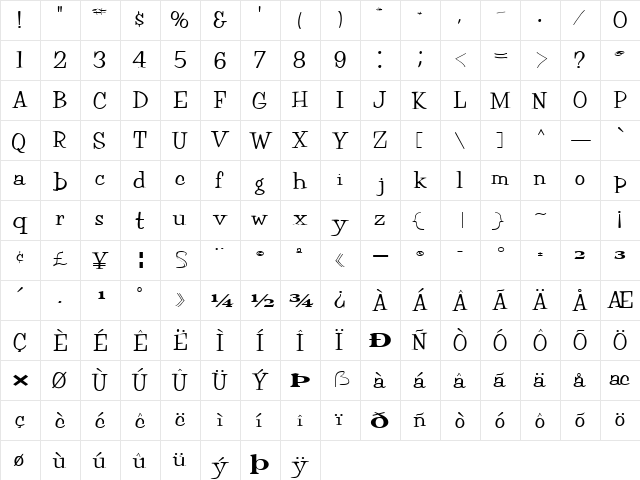
FairChild85 Regular
Design Context for FairChild85 Typeface
FairChild85 has an approachable, lighthearted character — its loose, expressive forms are well-suited to children's content, casual branding, and fun-first design.
Well-suited to food and beverage brands with personality, educational materials, and fun-forward identities.
Font Pairing: Pairs well with a rounded or humanist sans for body copy, maintaining the friendly tone without relying on FairChild85 to carry extended reading.
Pro Tip: Use FairChild85 at larger display sizes where its expressive character can land. Pair with a clean, simple sans for body copy to maintain readability.